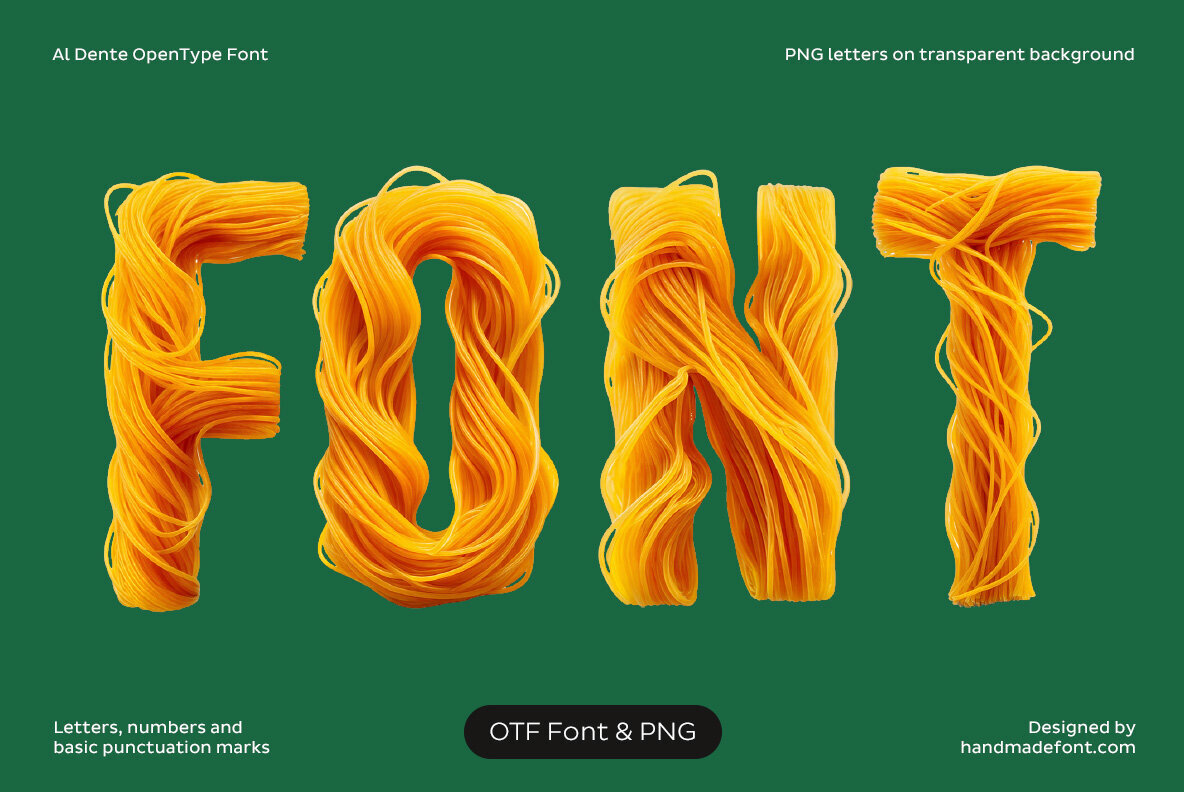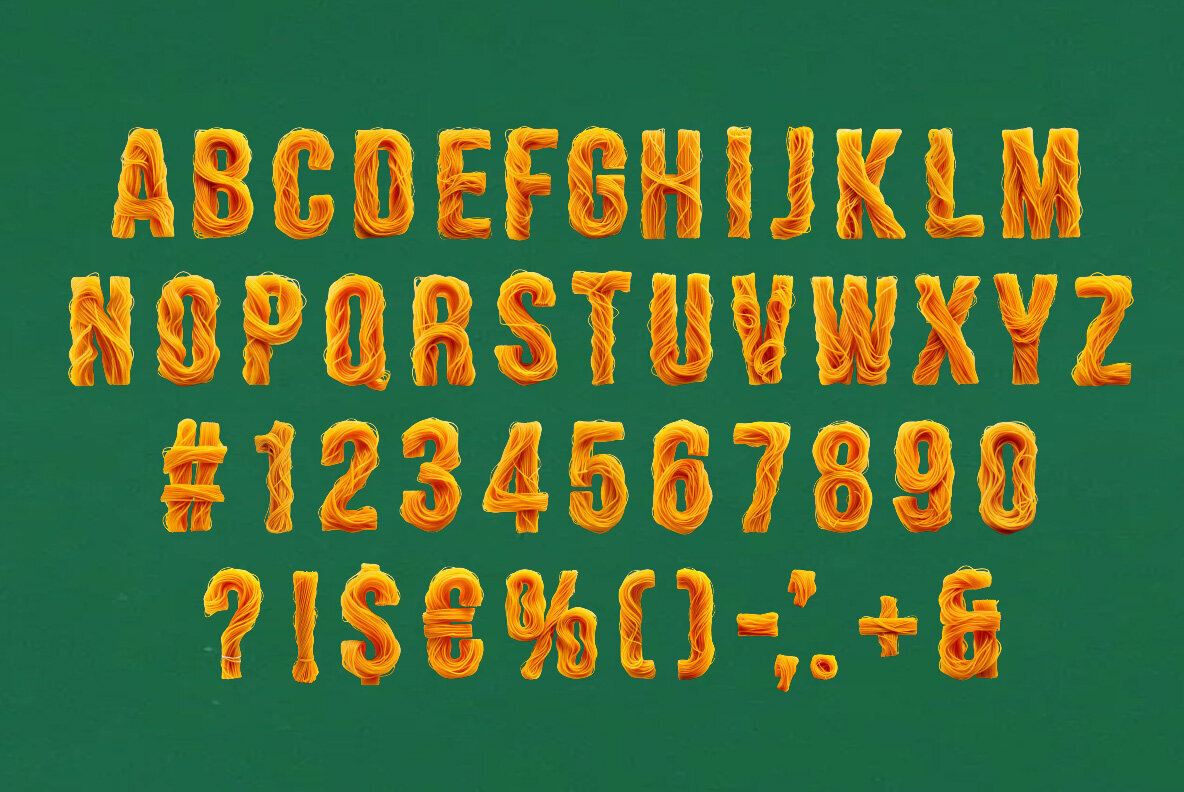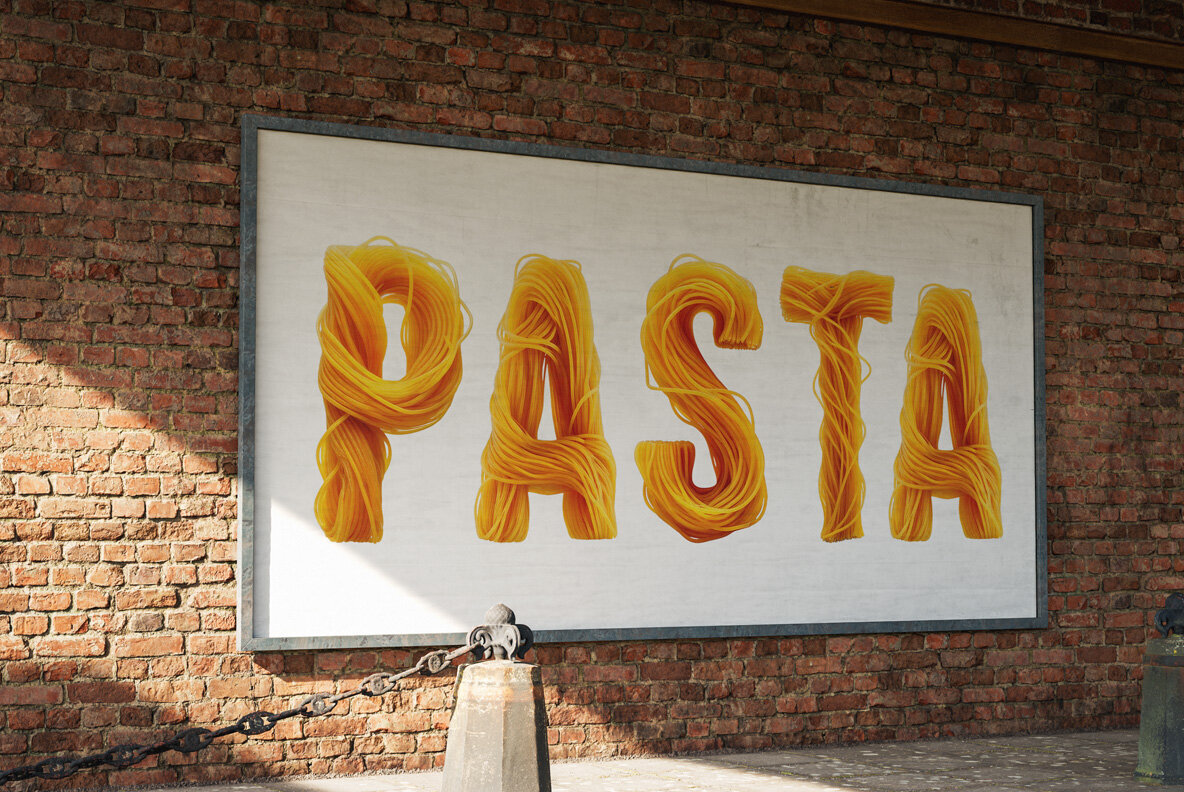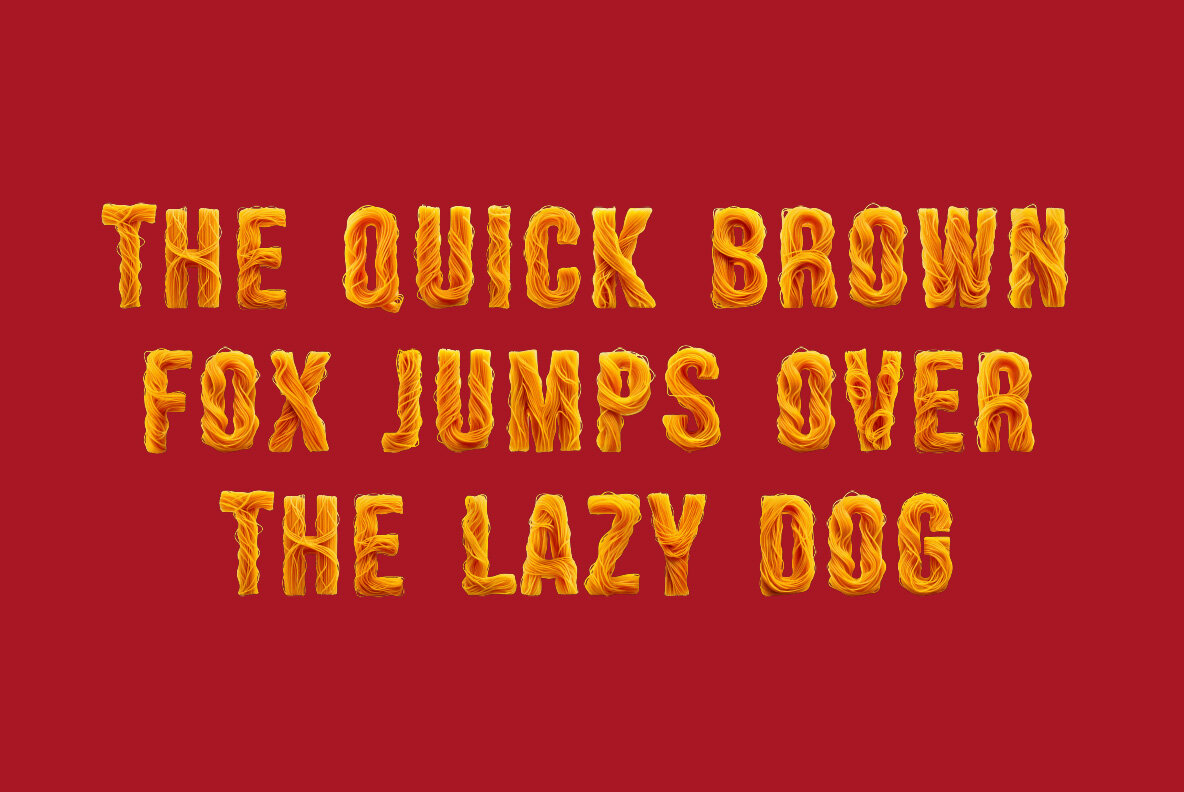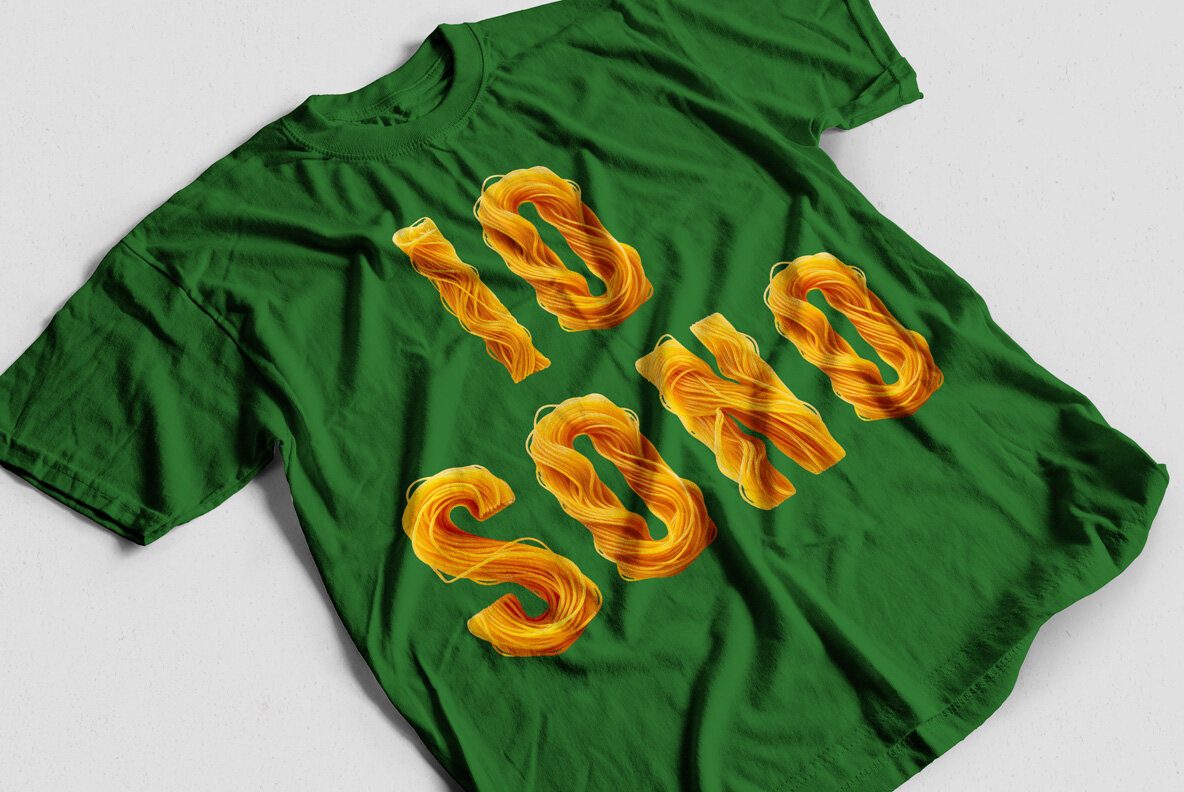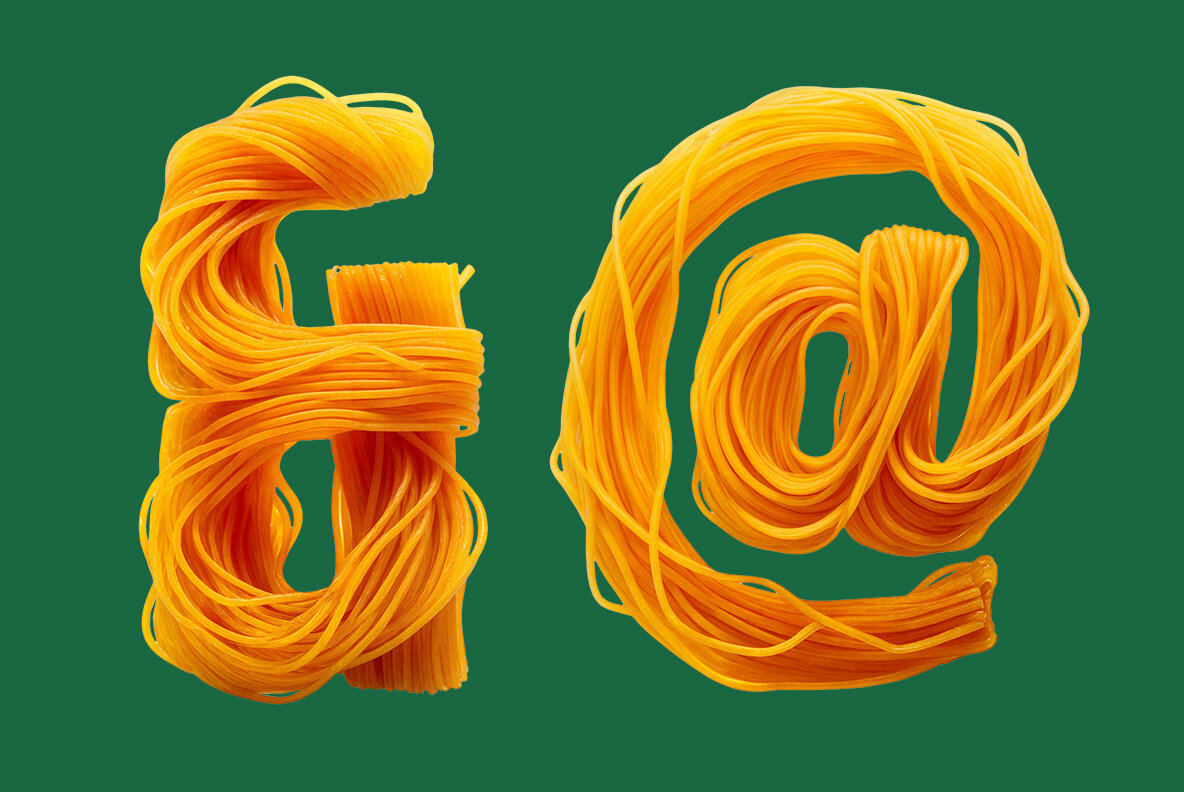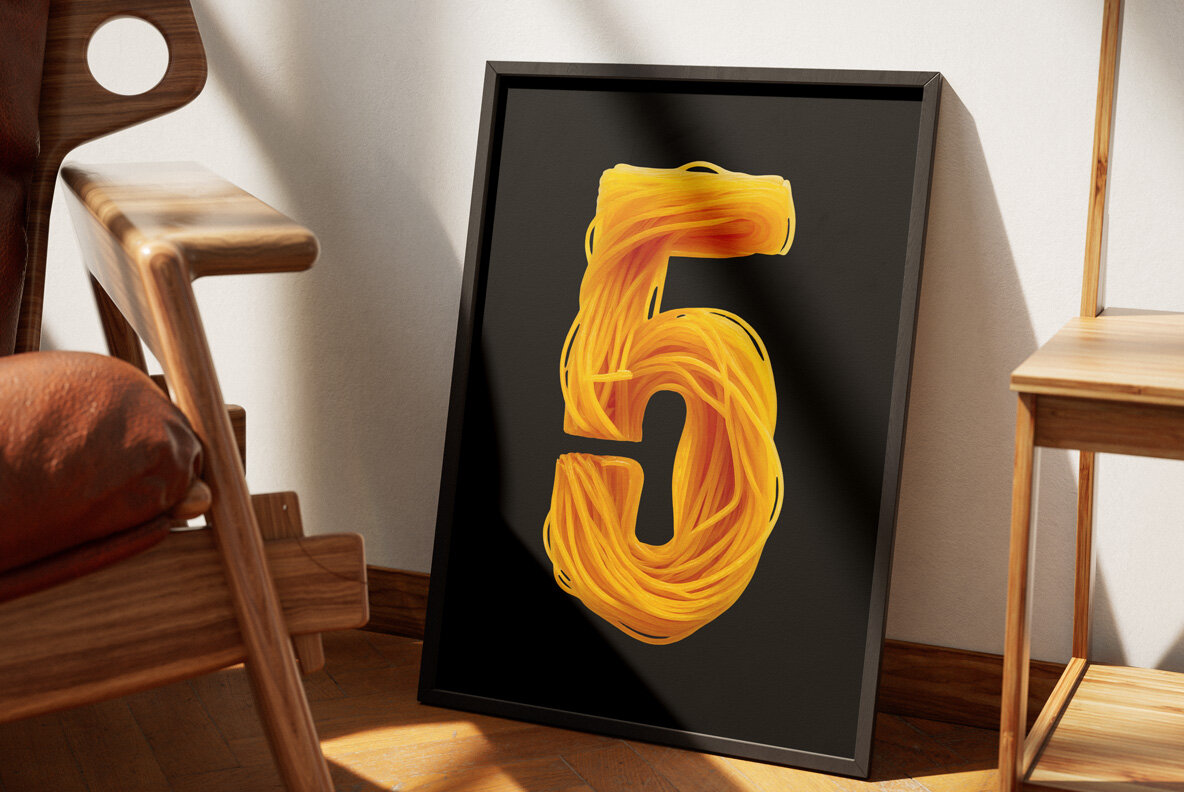
Al Dente Font is a mouthwatering handmade typeface inspired by the irresistible beauty of spaghetti. Each letter is shaped from real pasta, creating a playful blend of texture, realism, and Italian charm. This OpenType and PNG font delivers a unique, high-resolution 3D look — perfect for restaurant branding, creative food projects, packaging, or eye-catching social media visuals. Designed with precision and humor, Al Dente captures the essence of culinary creativity, transforming typography into an edible art form. Fresh, fun, and full of flavor — it’s the perfect ingredient to make your design projects stand out. A high definition OpenType Font. Contains uppercase characters, numerals and basic punctuation. (Draw height roughly 800 pixels). All letters and glyphs that comprises this font you can see on the preview. The font is a colour OpenType file which means this font will show up only in apps that are compatible with color bitmap fonts. Now that OpenType-SVG has been adopted as the industry standard, there is good chance that you can start using color fonts across your favorite software and hardware (Photoshop, Illustrator, InDesign, QuarkXPress, Keynote, PowerPoint, Word etc.) However all characters are also included as individual .png files which can be opened in any graphics software. Each letter comes as a separate PNG file on a transparent background. Each image has the high resolution size of 4000x4000px. This downloadable package contains 75 files. Letters : A B C D E F G H I J K L M N O P Q R S T U V W X Y Z Punctuation and Language Support. Due to the large nature of OpenType-SVG fonts, extended punctuation and language support are not included in the font files. However all punctuation characters and the following accents are included as individual image files in the .png letter set, which can be manually added to your text.
Others : ! ? - . ' $ € % & #